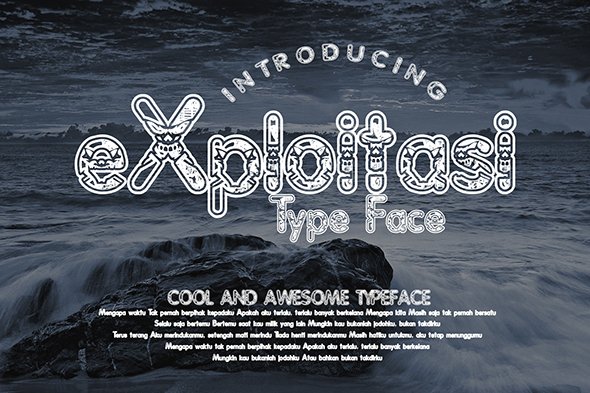
Unlock the Power of Typography: Discovering EXploitasi Font
You know that moment when inspiration strikes, and you’re itching to unleash your creativity? The blank page stares back, begging for something special. It’s in these moments that the right font can make all the difference. For designers seeking to elevate their work, the EXploitasi Font is a game-changer.
This unique typeface is designed to captivate audiences, making it perfect for headlines, book covers, posters, invitations, and more. With its versatility, the EXploitasi Font offers endless possibilities for creative expression. Whether you’re a seasoned pro or just starting out, this font is a valuable addition to any designer’s toolkit.
By incorporating the EXploitasi Font into your projects, you’ll be able to add a touch of sophistication and style that sets you apart from the rest. So, what are you waiting for? Dive into the world of typography and discover the limitless potential of the EXploitasi Font.
Key Features of “EXploitasi Font”
- Unique Characteristics: Features a unique blend of modern and traditional typography, with intricate details and subtle nuances
Review of “EXploitasi Font”
I recently had the chance to work with “EXploitasi Font” and I must say it’s an interesting choice for a font. Here are some things that I think work well: ✨
- Unique style: The font has a distinctive and edgy look that can add a touch of sophistication to a design.
- Good legibility: Despite its bold and unconventional design, the font remains readable, even at smaller sizes.
- Wide character set: The font includes a wide range of characters, including accents and symbols, which makes it a good choice for international designs.
However, there are some limitations that I think are worth mentioning: ⚠️
- Overuse of bold: The font is very bold and can feel overwhelming if used excessively. It’s best to use it sparingly to create contrast and emphasis.
- Limited pairing options: The font’s bold and edgy style makes it difficult to pair with other fonts, which can limit its versatility.
Overall, I think “EXploitasi Font” is a solid choice for designers who want to add a touch of sophistication and edginess to their designs. However, it may not be the best choice for designers who prefer a more subtle or traditional approach. With careful use and consideration, this font can be a great addition to any design project.